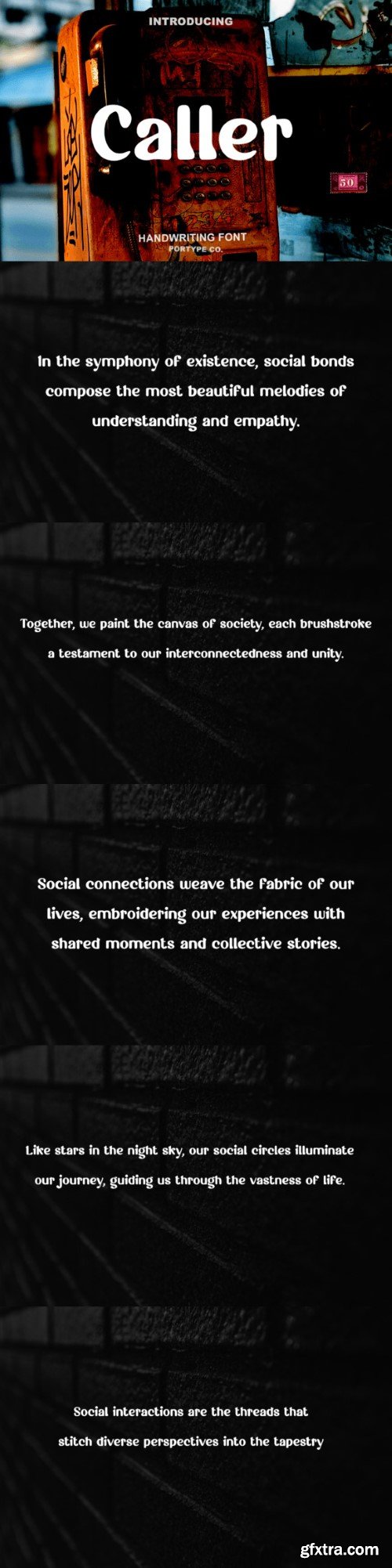
呼叫字体
Caller font is an embodiment of handwritten authenticity, crafted with a blend of flowing strokes and personal flair. Each letter carries an individualized touch, mirroring the warmth and personal connection of pen-to-paper expression. Perfect for adding a personal feel to designs, invitations, or creative projects, Caller font brings an organic and genuine handwritten style that captivates and resonates with its heartfelt appeal.